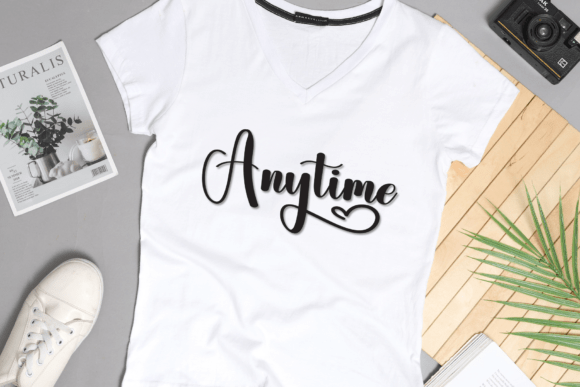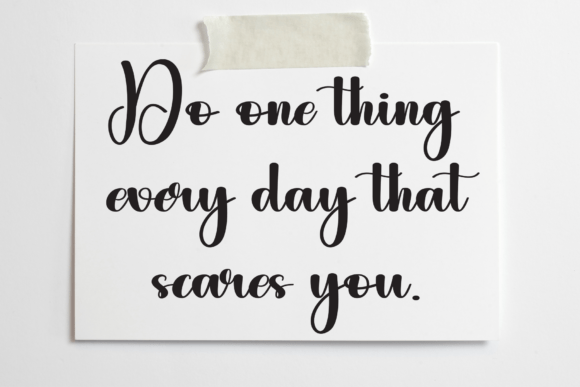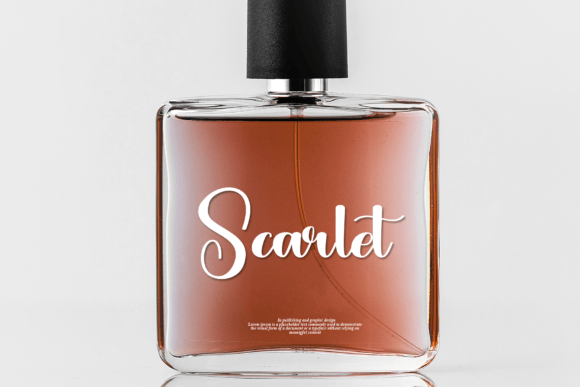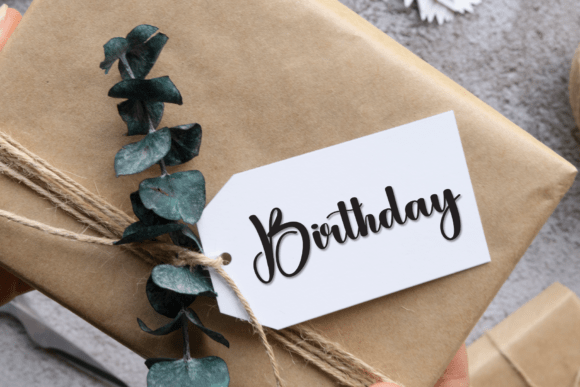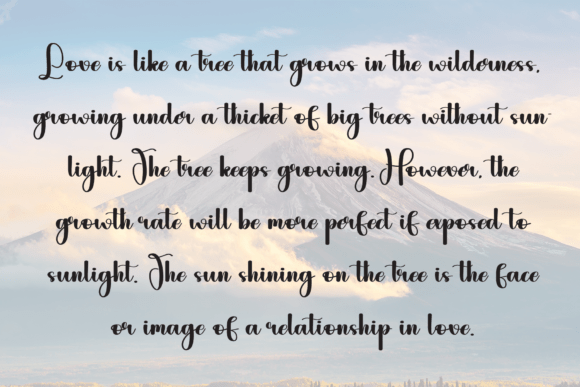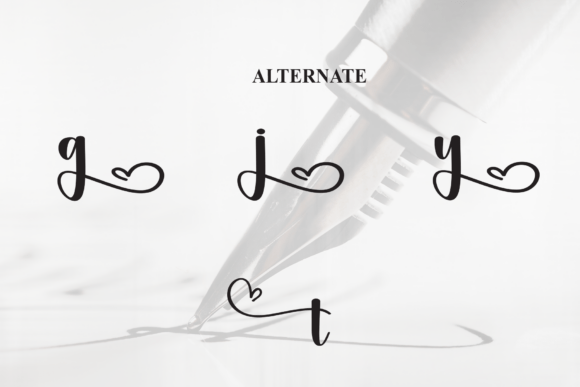
Creating Lasting Memories, One Letter at a Time
As you sit down to plan the perfect wedding invitation or a heartfelt birthday card, the creative wheels start turning. You want to capture the essence of the moment, convey the love and excitement, and make it truly unforgettable. This is where the right font can make all the difference – and that’s exactly what Alphabet Signature Font is designed to do.
This charming, handwritten font is more than just a typeface – it’s a way to infuse your designs with warmth, friendliness, and a dash of whimsy. With its PUA encoding, you can easily access all the stylistic features and extras that make Alphabet Signature Font truly special. Whether you’re a seasoned designer or just starting out, this font is a valuable addition to your toolkit – one that will help you elevate your creative expression and bring joy to your audience.
Alphabet Signature Font Key Features
- Font Style: A modern, elegant, and cursive script font, ideal for creating unique and personalized signatures.
- Unique Characteristics: Features a flowing, handwritten feel with subtle flourishes, making it perfect for adding a personal touch to documents and digital signatures.
Alphabet Signature Font Review
Overall, I think the Alphabet Signature Font is a beautiful and elegant choice for personal branding or creative projects. Here’s a breakdown of what works well and where it falls short.
- Unique and modern design aesthetic: The Alphabet Signature Font has a distinctive, hand-drawn feel that sets it apart from more generic fonts.
- High-quality glyphs: The font includes a wide range of characters, including ligatures and accents, making it suitable for both body text and display purposes.
- Limited font sizes: While the font looks great at larger sizes, it can become pixelated and hard to read at smaller sizes.
- No language support: The font is currently only available in English, which may limit its usefulness for non-English language projects.
In conclusion, the Alphabet Signature Font is a great choice for personal branding or creative projects where a unique, modern design aesthetic is desired. However, its limitations may make it less suitable for larger, more complex projects or those that require extensive language support.
The Alphabet Signature Font is ideal for creating personalized and unique designs, such as:
– Signature cards
– Business cards
– Invitations
– Branding materials
– Personalized gifts
To get the most out of the Alphabet Signature Font, experiment with different font sizes, colors, and styles to create a unique look that reflects your personal brand or style.